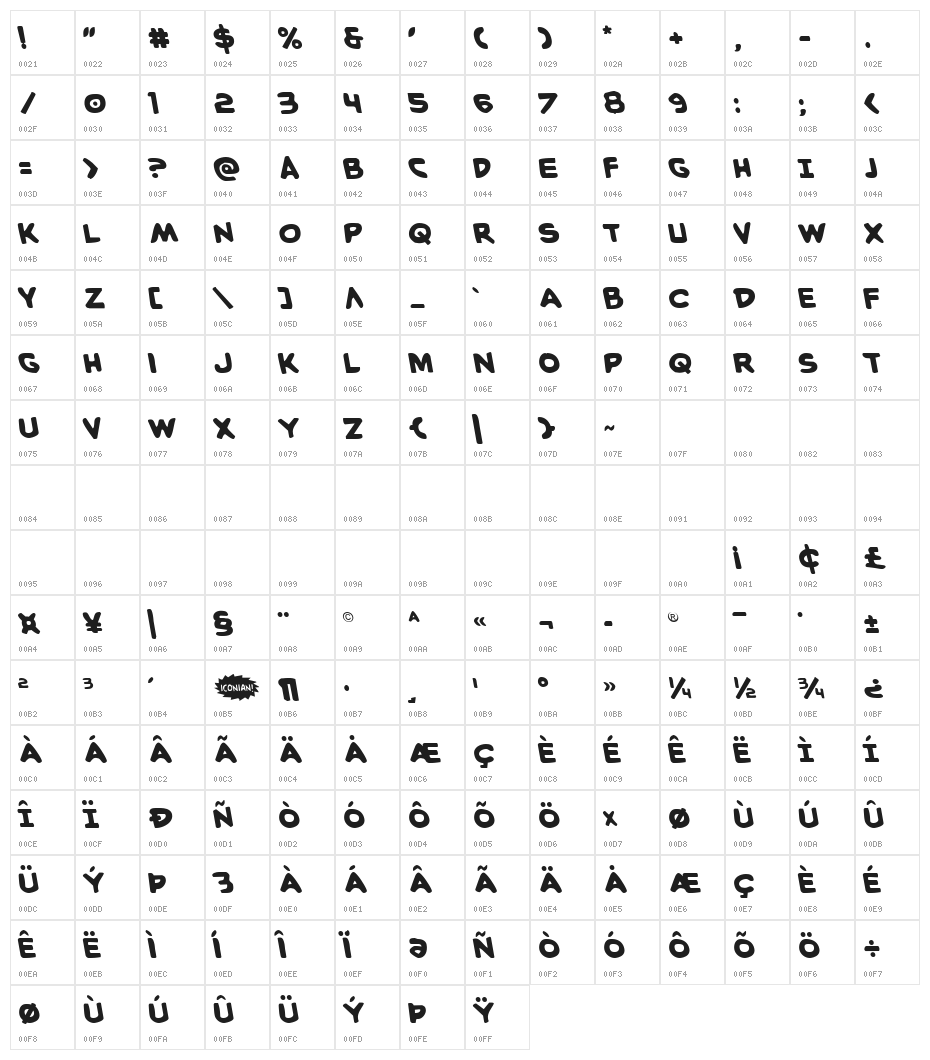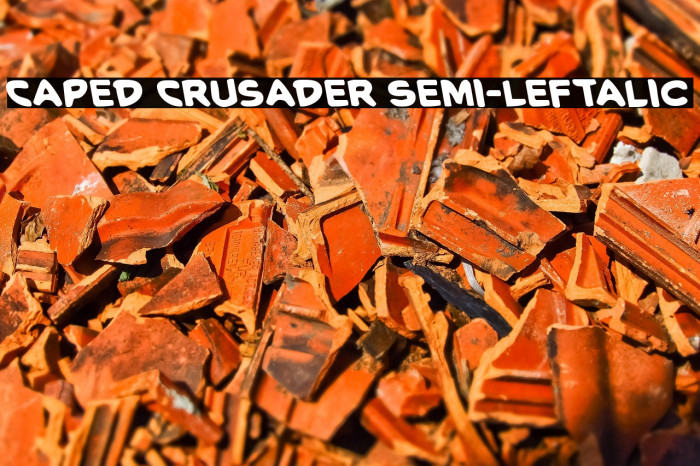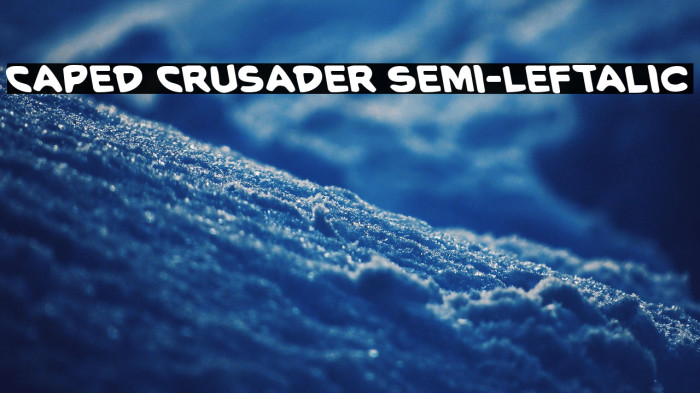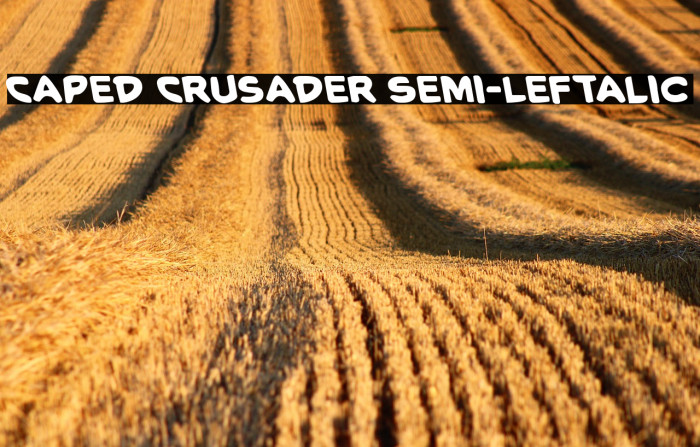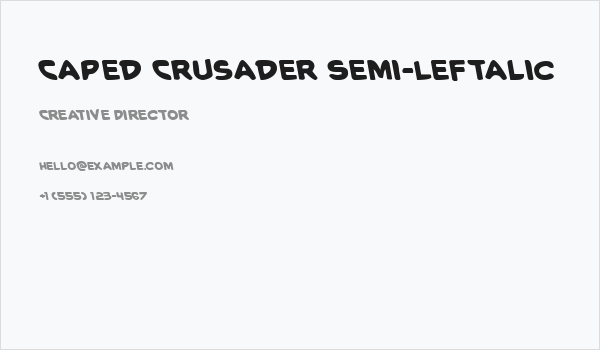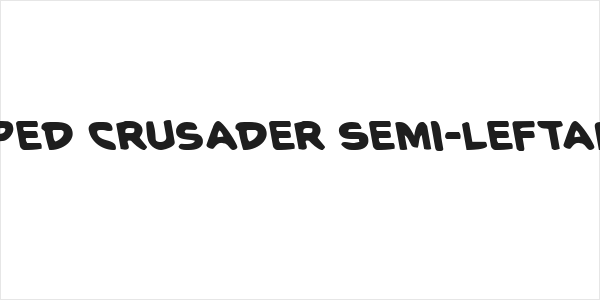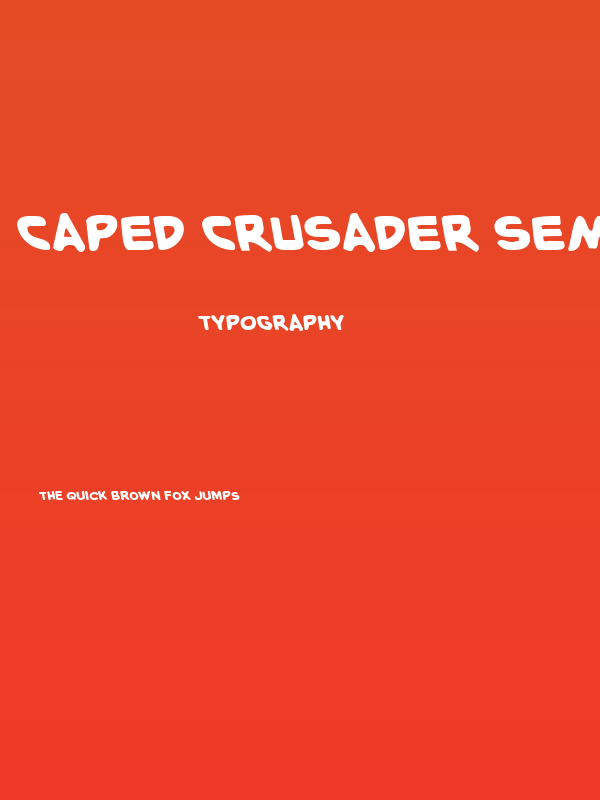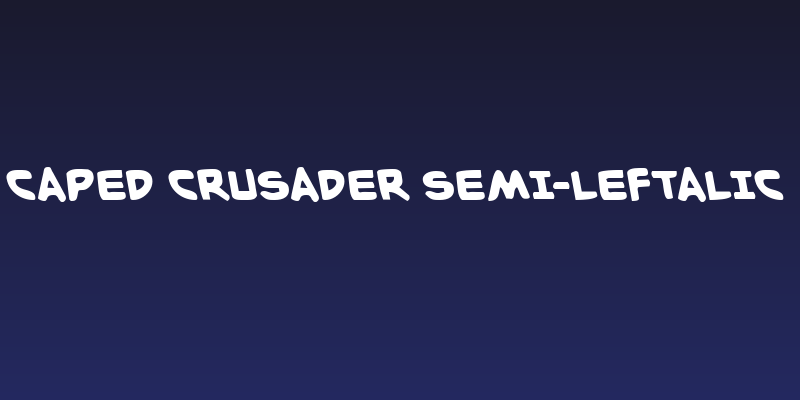
Caped Crusader Semi-Leftalic Font
Caped Crusader Semi-Leftalic Description
This font features a bold and playful style with a slightly italicized slant, giving it a dynamic and energetic appearance. The characters are rounded and thick, providing a strong presence on the page. The uppercase and lowercase letters maintain a consistent style, with a slightly exaggerated curvature that adds to its whimsical nature. The numbers and special characters follow the same design principles, ensuring uniformity across all glyphs. This font is ideal for projects that require a fun and engaging aesthetic.
| Overall Style | Playful, Energetic |
| Proposed Projects | Ideal for comic books, children's books, playful branding, and posters. |